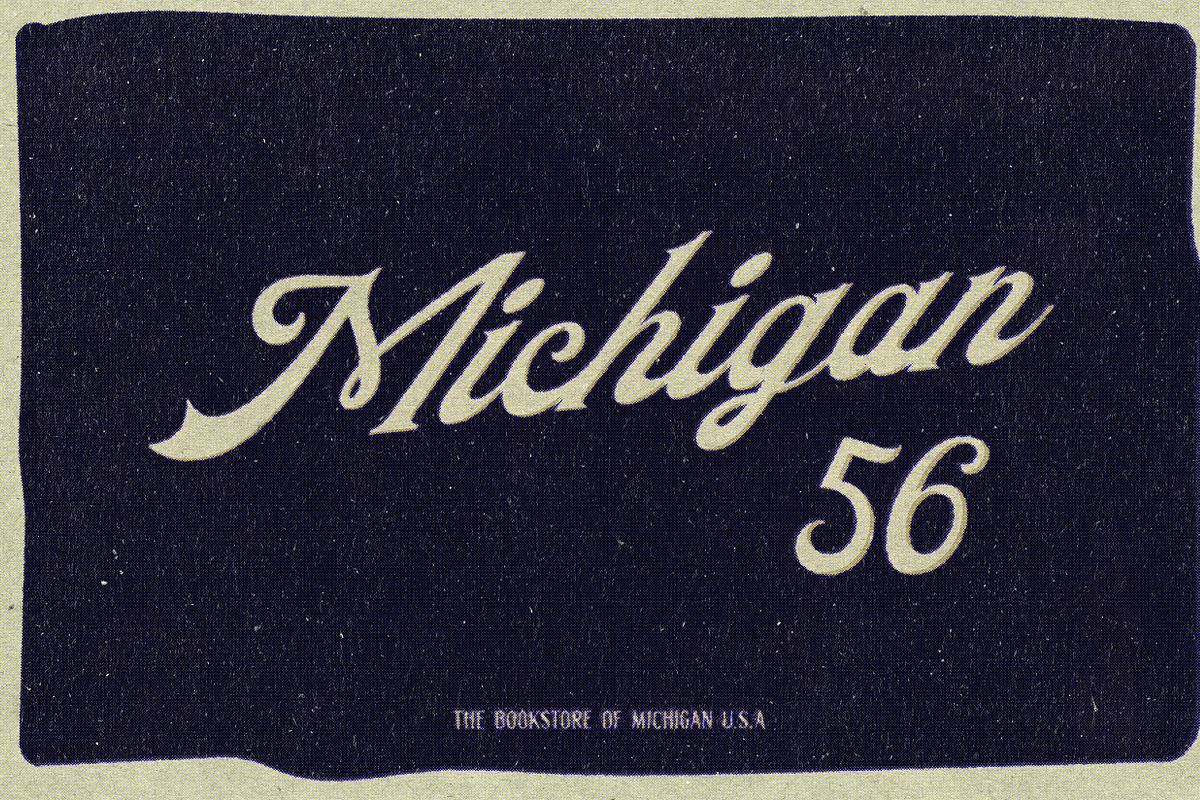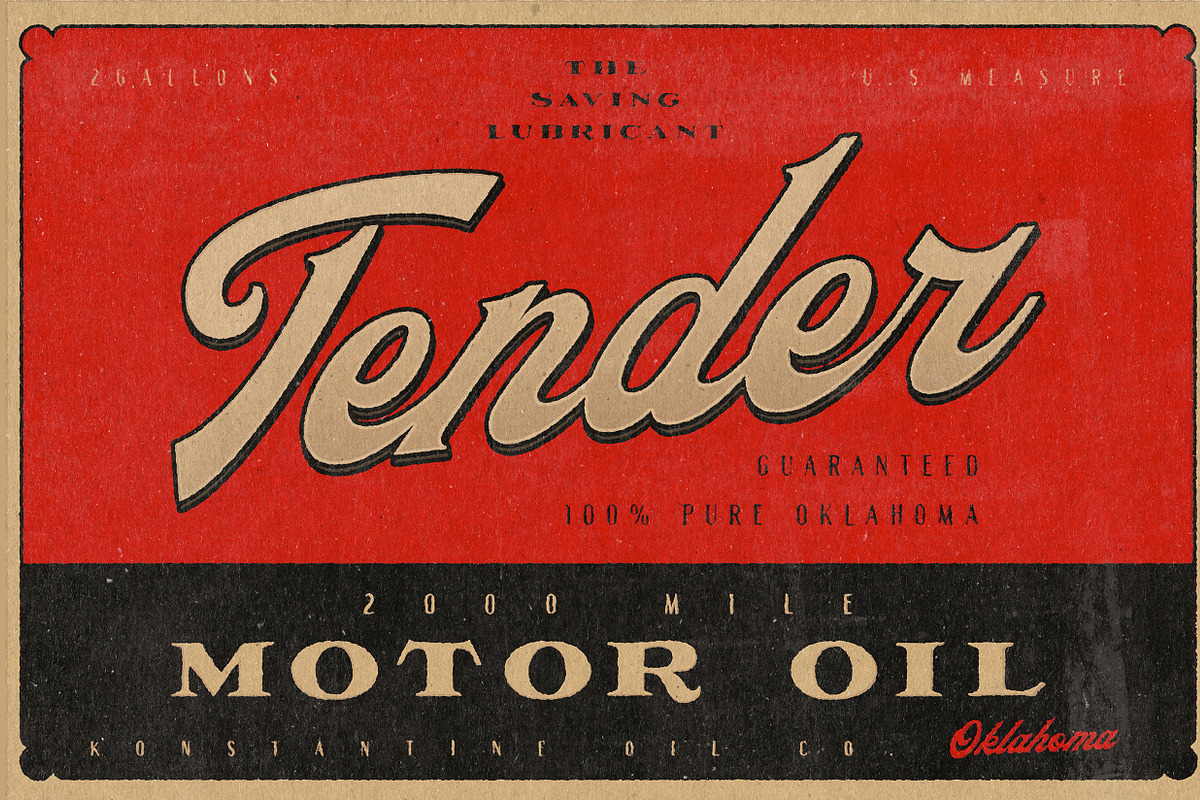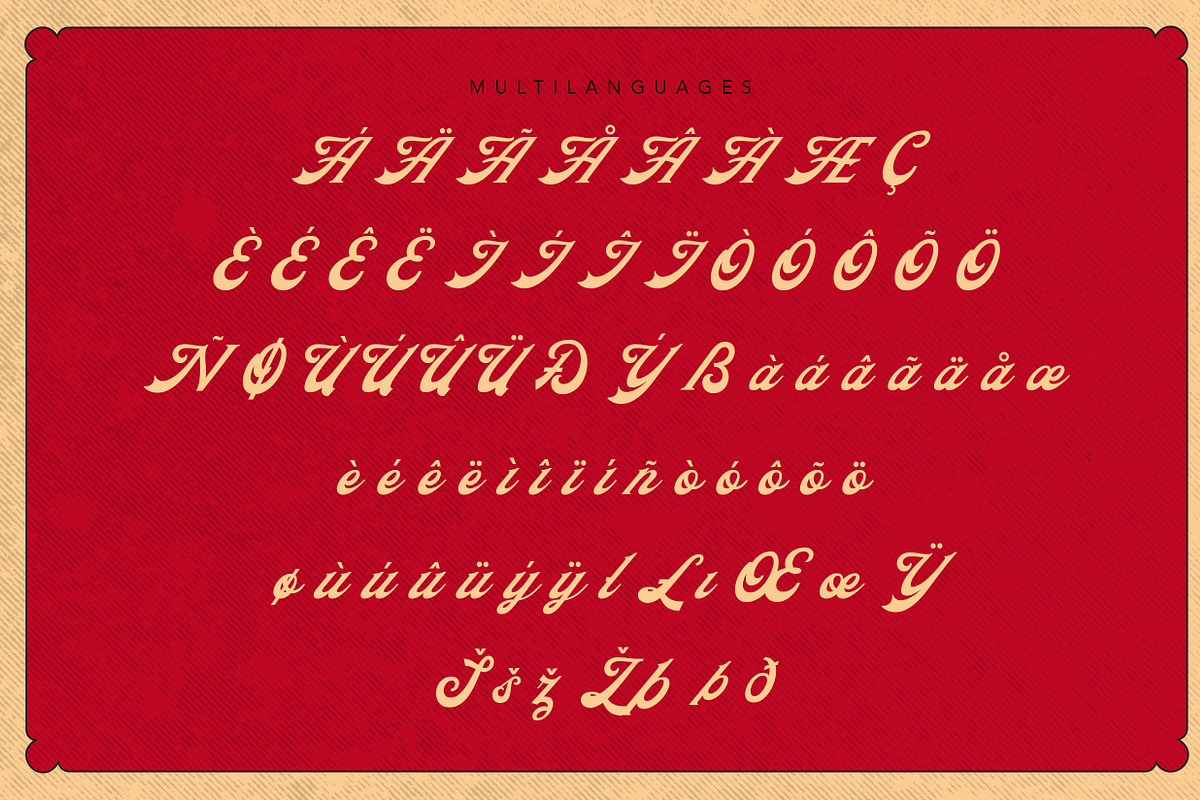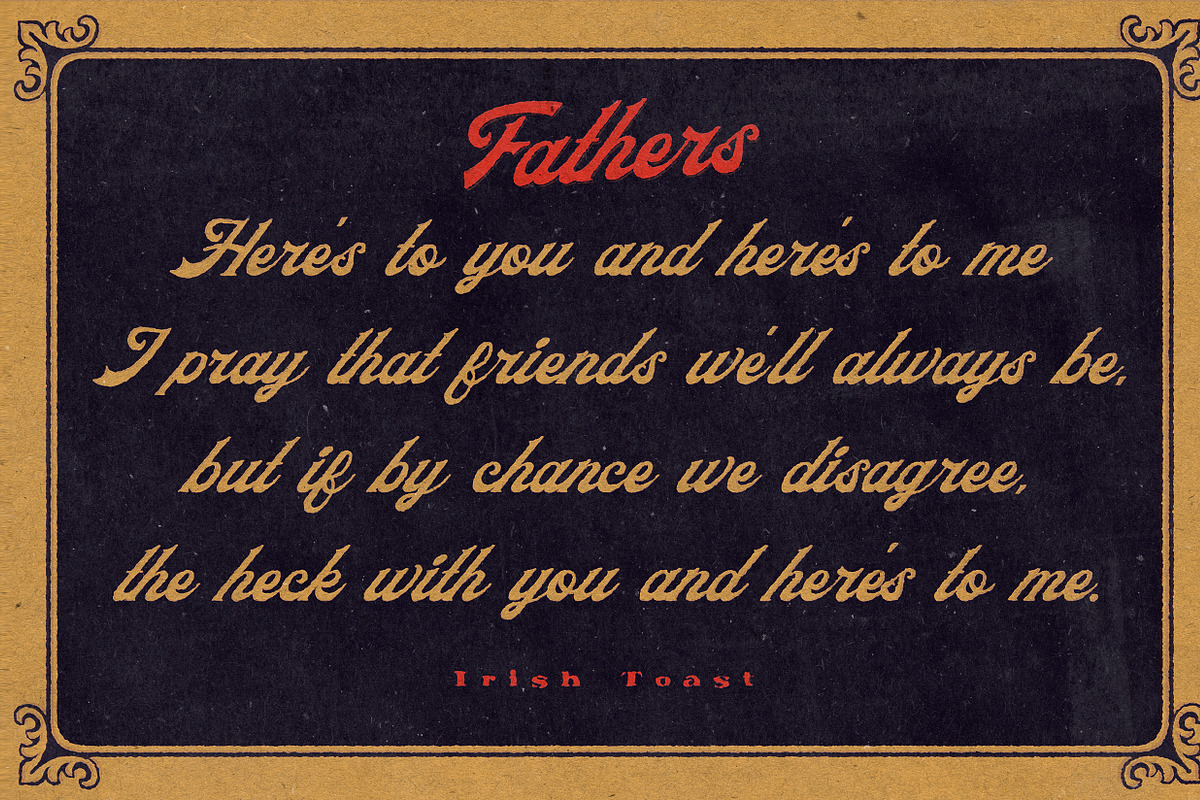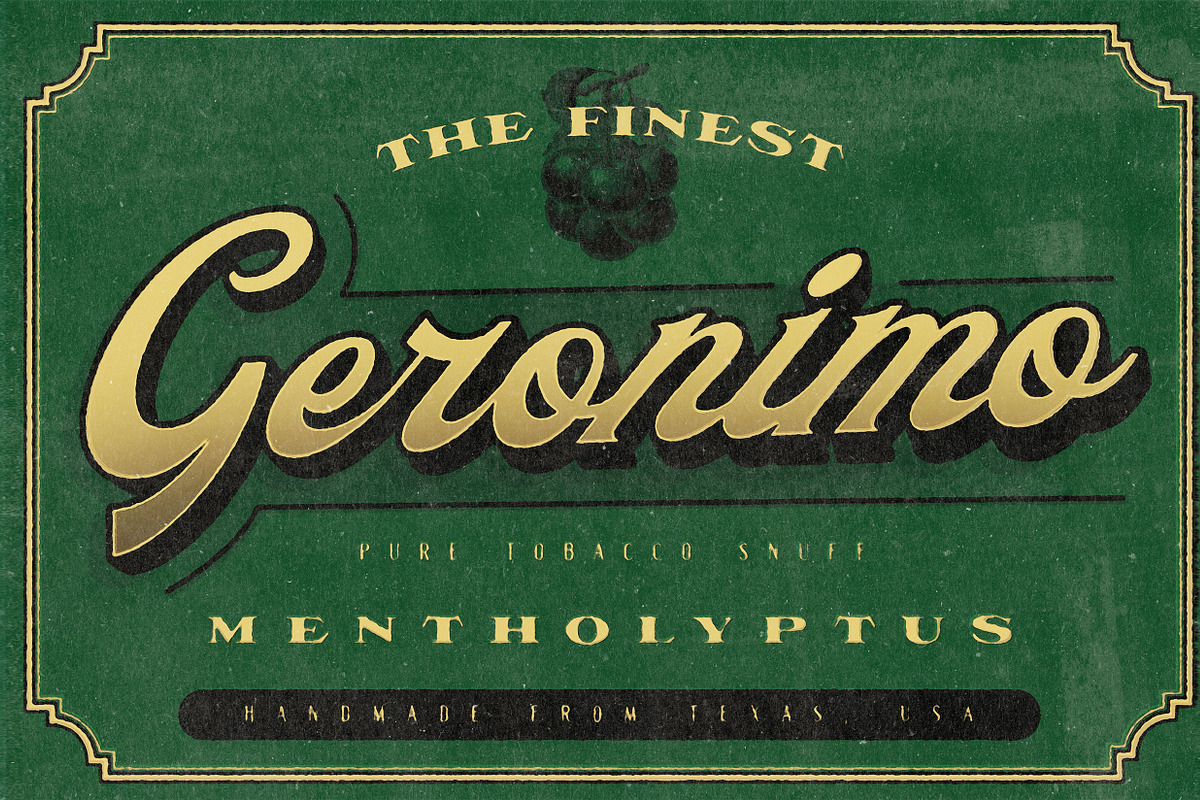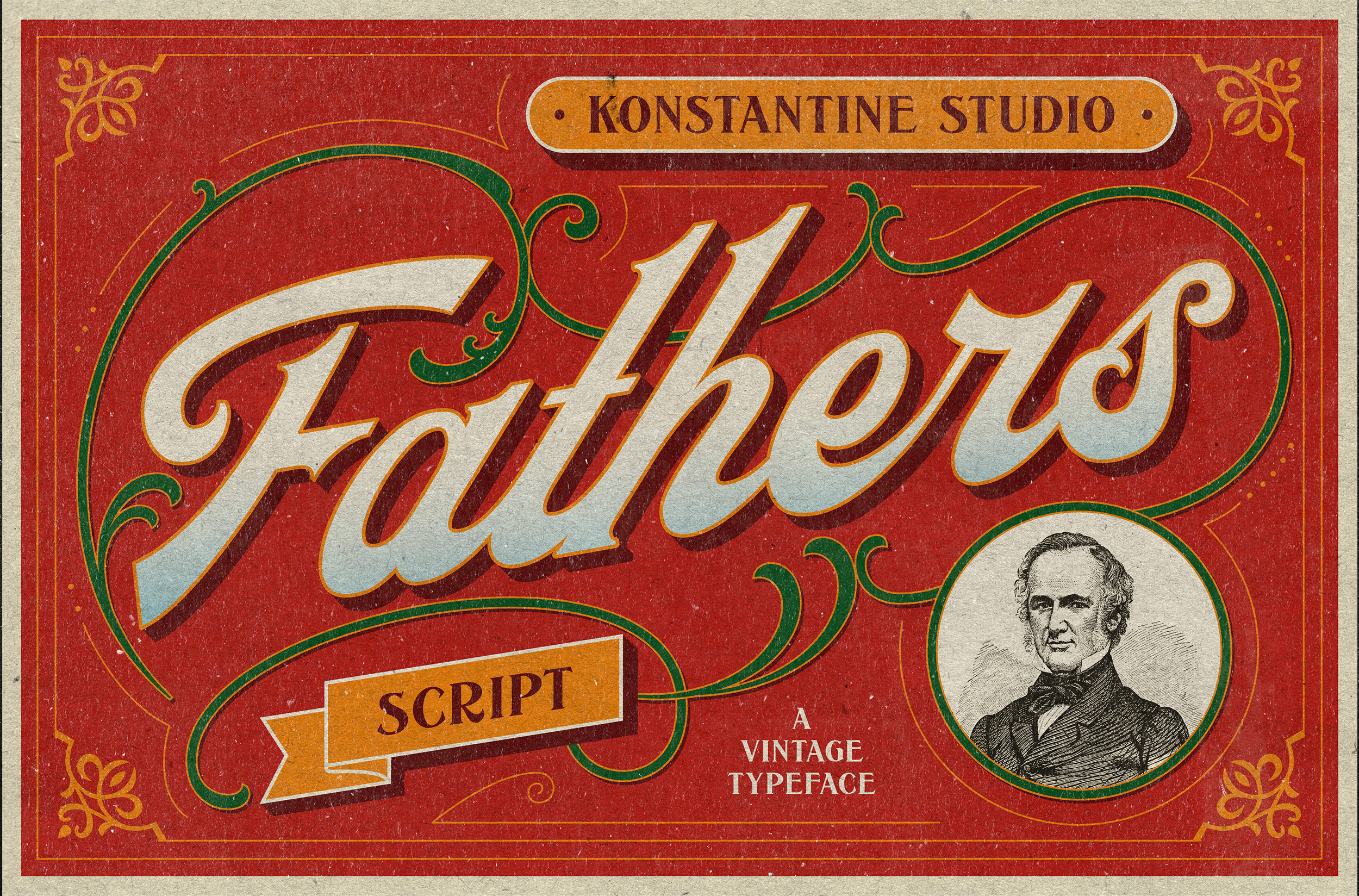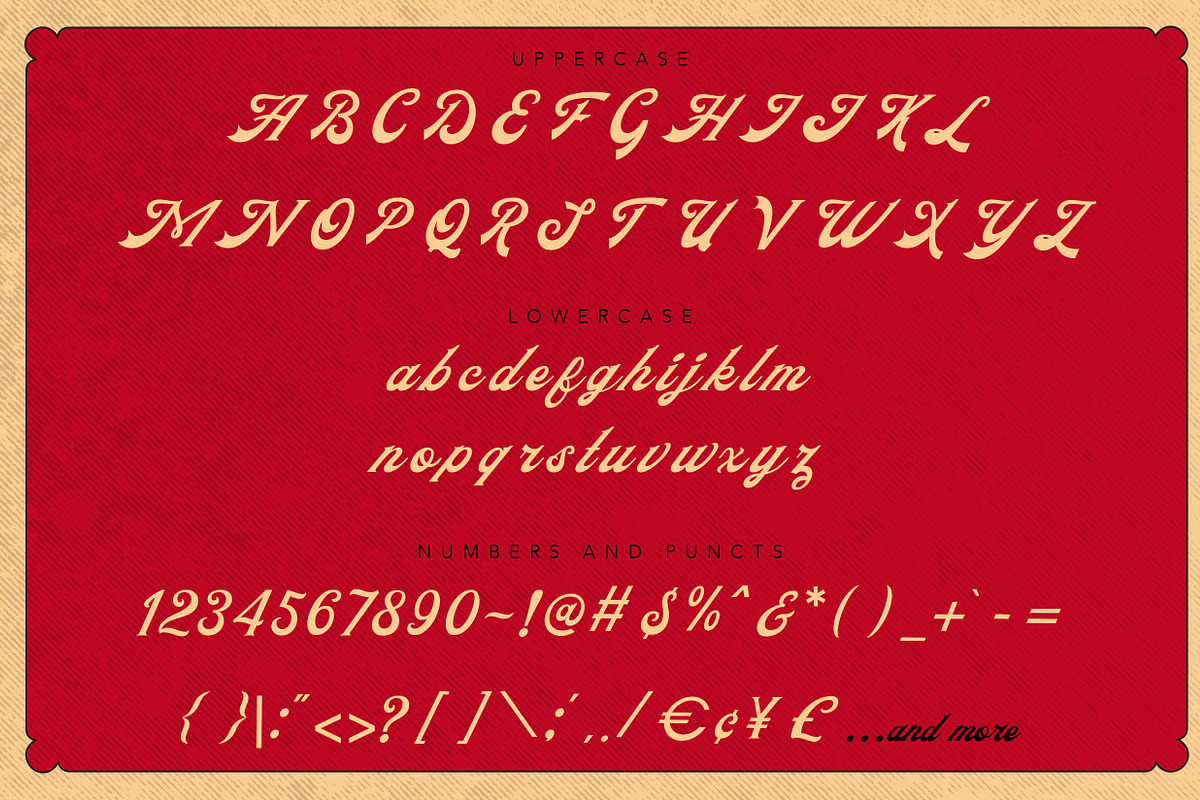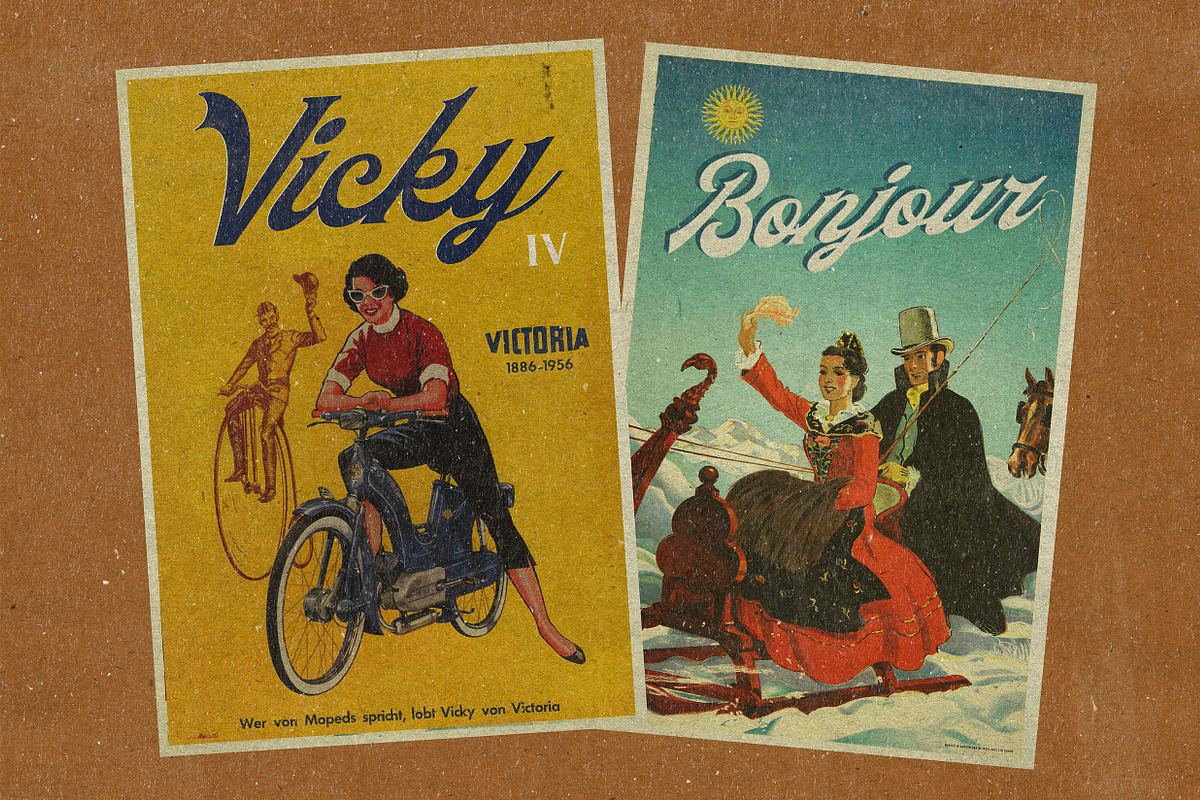
Fathers - Vintage Old Lettering Font
Introducing Fathers, Inspired from the vintage classic old packaging and advertising back in 1950 - 1980's era. perfectly fit for your classic packaging, vintage logo branding, old poster and advertising. Get the easy forefathers feel by just type it out to your design.
- Numbers and Punctuations
Language Support : Danish, Dutch, English, Filipino, Finnish, French, Galician, German, Icelandic, Indonesian, Irish, Italian, Norwegian Bokmål, Norwegian Nynorsk,Portuguese, Romansh, Spanish, Swahili, Swedish, Swiss German, if you doubt with it please type it out in the text box below, i hope it will support your language too :)